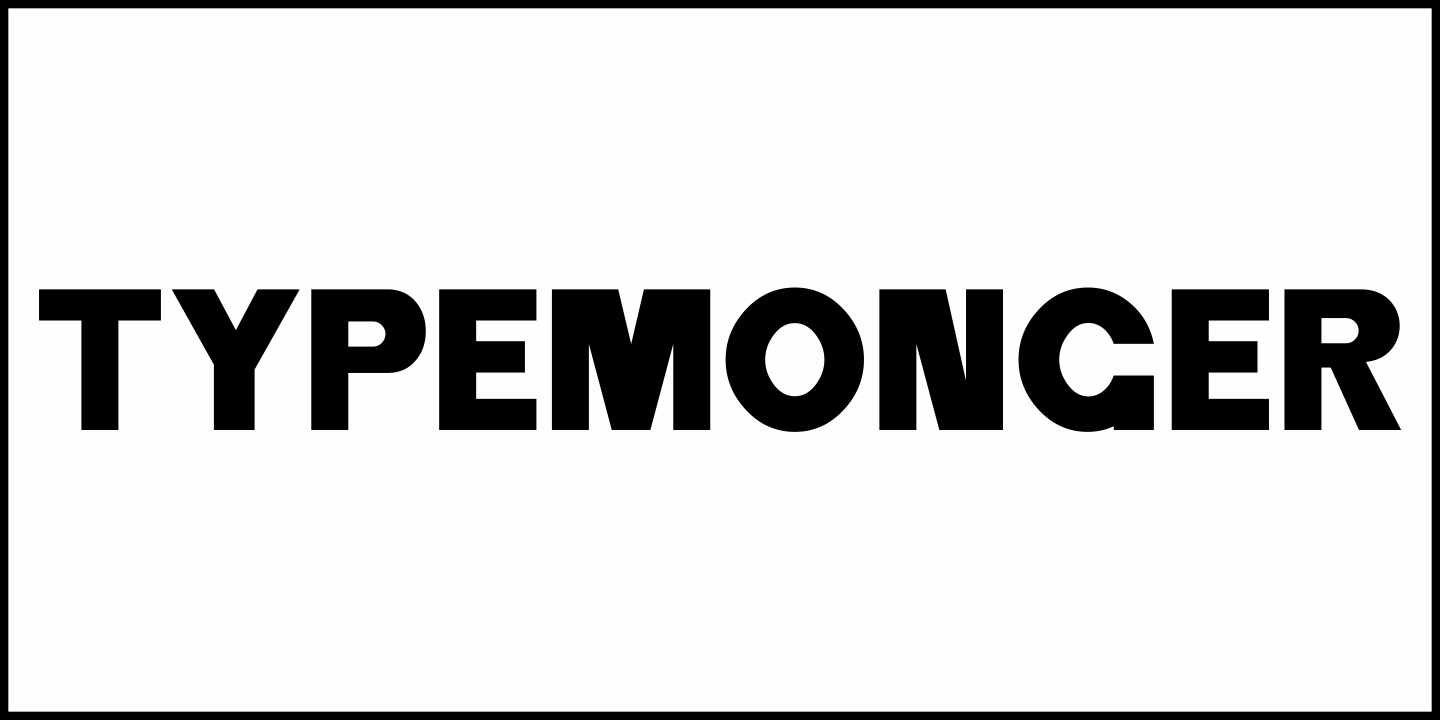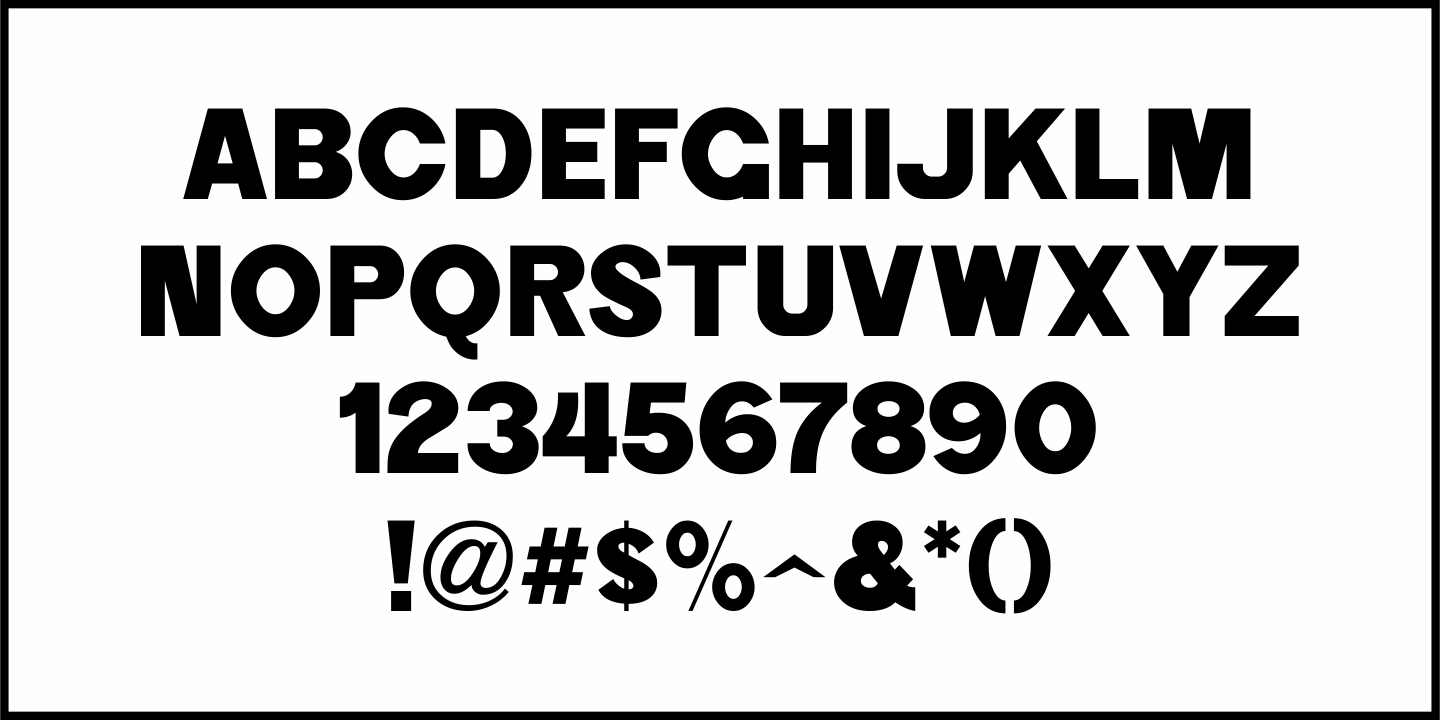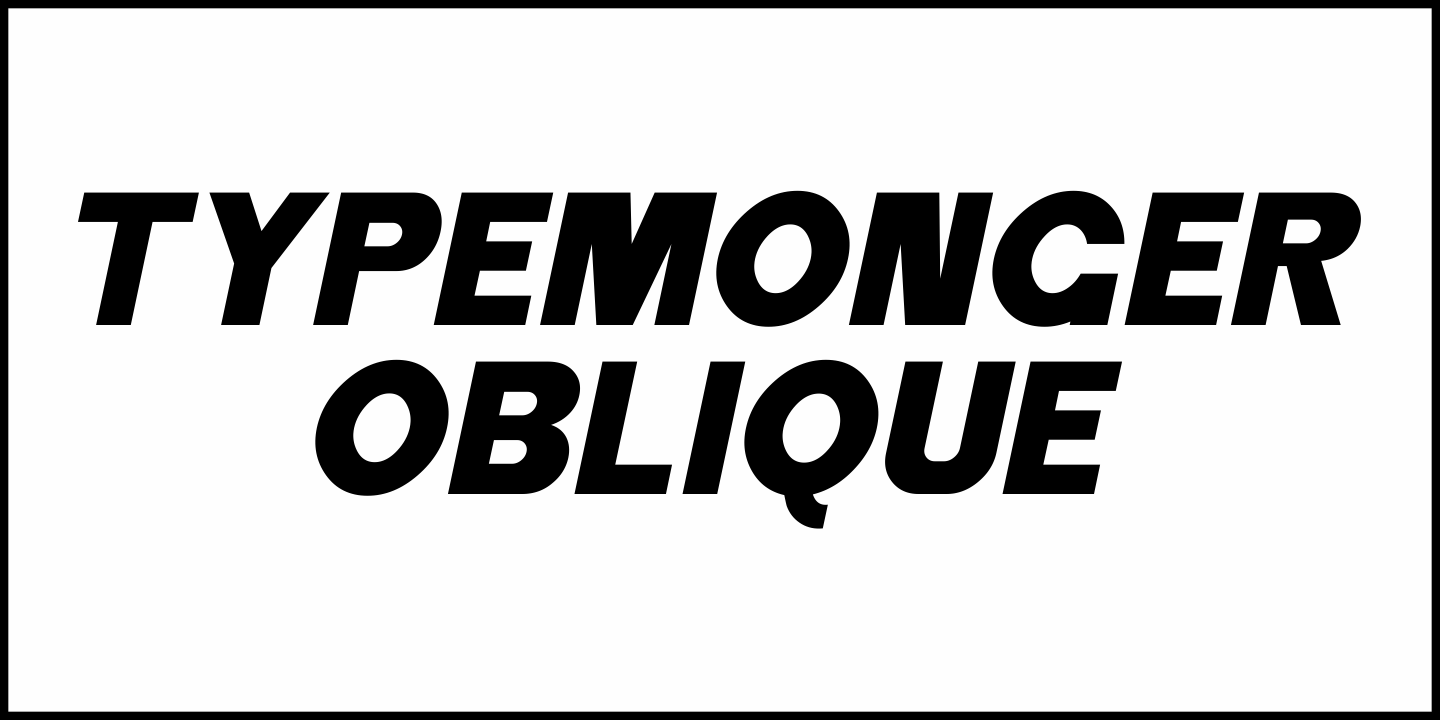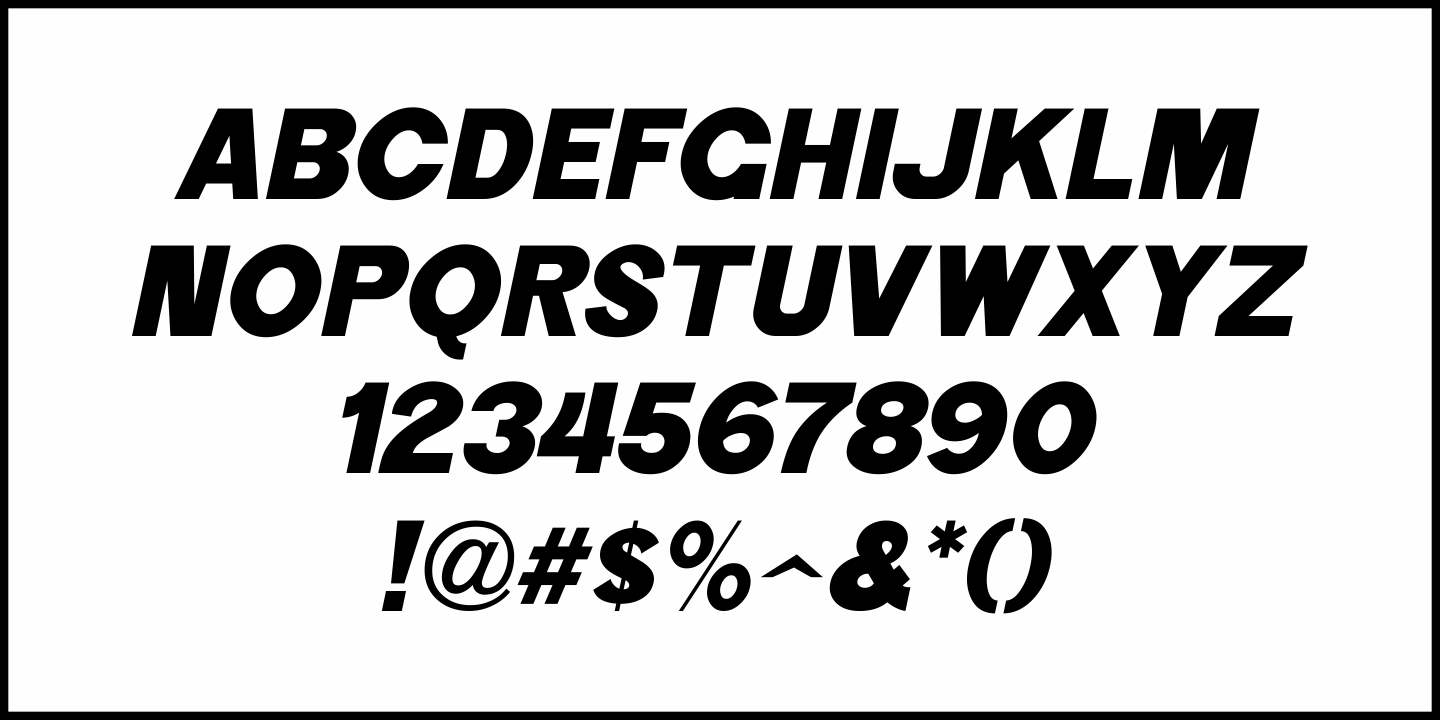
Typemonger
Typemonger JNL is based on Two Line Sans Serif from the British type specimen book of Vincent Figgins (circa 1860), and is available in both regular and oblique versions.
The word ‘monger’ is an old term for a merchant specializing in a certain commodity (such as printing type).